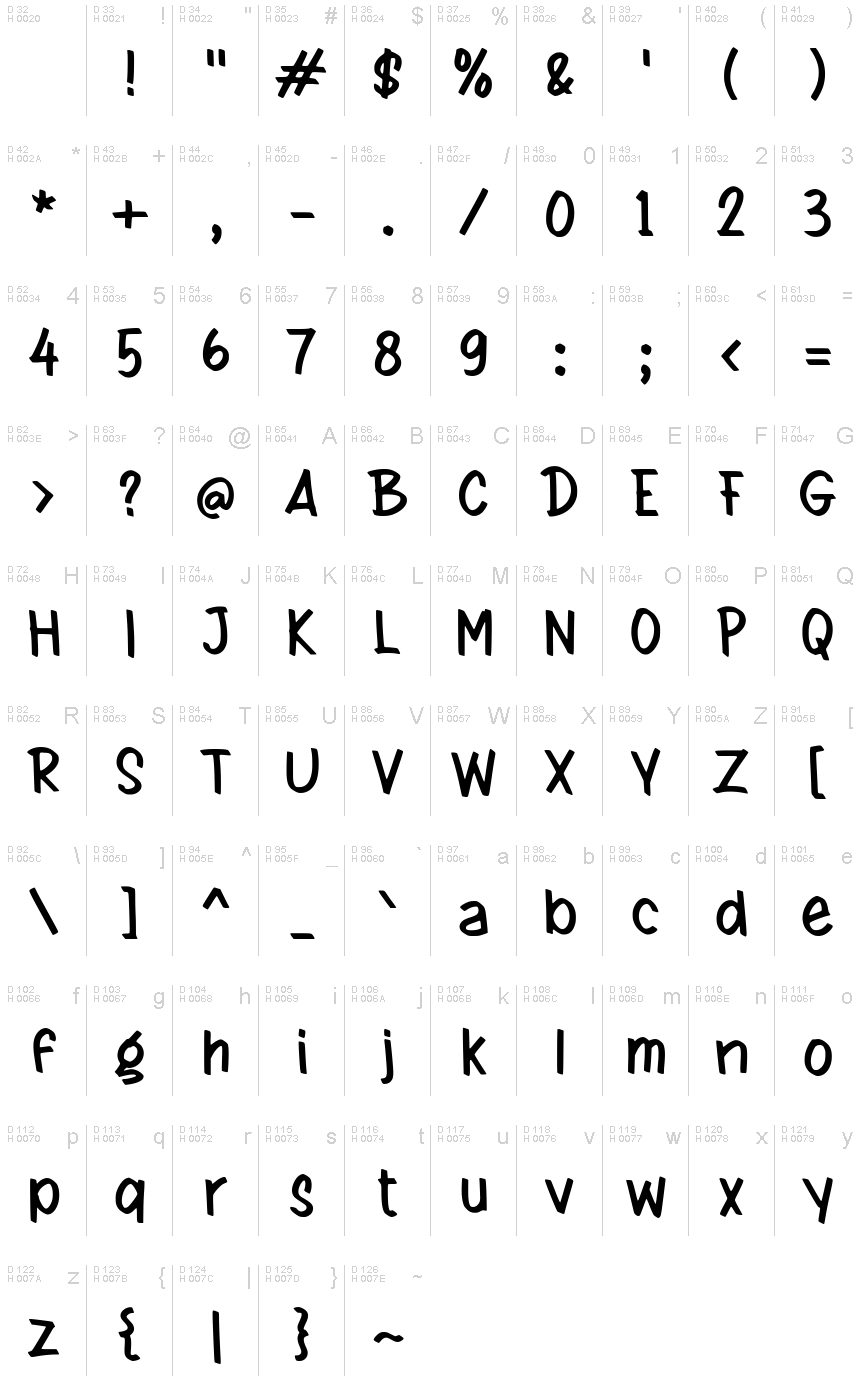
Frensya
Frensya is a captivating display font that exudes a playful, cartoon-inspired charm. With its whimsical curves and slightly askew letterforms, this font immediately captures the eye and evokes a sense of playfulness and lighthearted energy.
Designed by the talented wep, Frensya's distinctive aesthetic lends itself beautifully to a wide range of applications, from children's book covers and stationery to bold branding and packaging designs. Its expressive, slightly exaggerated style makes it an excellent choice for adding a touch of fun and personality to any project.
Whether you're creating a vibrant logo, crafting an engaging social media post, or designing a captivating poster, Frensya's unique character is sure to captivate your audience and leave a lasting impression.
Designed by the talented wep, Frensya's distinctive aesthetic lends itself beautifully to a wide range of applications, from children's book covers and stationery to bold branding and packaging designs. Its expressive, slightly exaggerated style makes it an excellent choice for adding a touch of fun and personality to any project.
Whether you're creating a vibrant logo, crafting an engaging social media post, or designing a captivating poster, Frensya's unique character is sure to captivate your audience and leave a lasting impression.